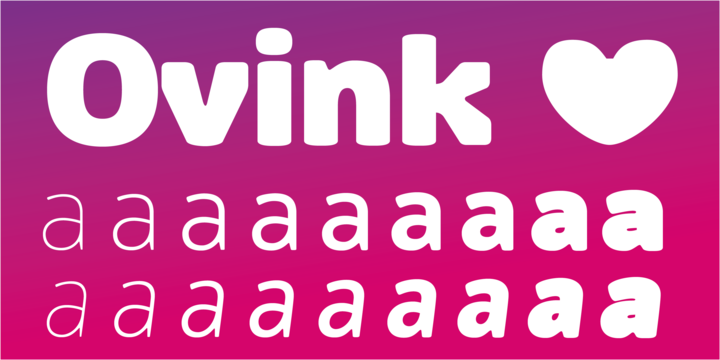
Ovink is loosely inspired by Knud V. Engelhardt’s work for the street signage, designed around the years 1926-27 for Gentofte in Denmark. Being rooted in the Danish typography tradition, Ovink has a sturdy unpretentious look to it, yet compared to its predecessor the curves are tighter, and characters have a higher level of differentiation.
Ovink is designed for great distance legibility, but the high regularity of the letters also makes the typeface suitable for running text. The wide span of weights motivates a broad usage for the setting of both display and text. More…
The typeface is named after the legibility researcher Gerrit Willem Ovink. An early version of the typeface was subjected to experimental legibility investigations* of distance and time threshold methods. Participants were exposed to different variations of the most frequently misread lowercase letters. The findings, which were implemented in the final designs, demonstrated that the two-story ‘a’ has a higher legibility than the one-story ‘a’ and a diagonal spine of the ‘s’ has a lower legibility than a round spine. ‘j’, and ‘t’ both benefit from a long tail, and that ‘e’ at distance viewing is more visible with an open aperture. The study also showed that ‘i’ is more legible with a serif on top, and that a wide ‘l’ is more legible than a narrow ‘l’. For that reason, Ovink can be set both with, and without, serifs on ‘i’ and ‘j’, and tail on ‘l’.
Signage typefaces are often presented as a light coloured text on a dark background. We know that negative text appears bolder in the stroke than positive text, the weights of the typeface Ovink are therefore designed to even out this difference. When set negative, the Regular weights appear similar to the Medium weights set positive. The same goes for the pairing of SemiBold and Bold weights.